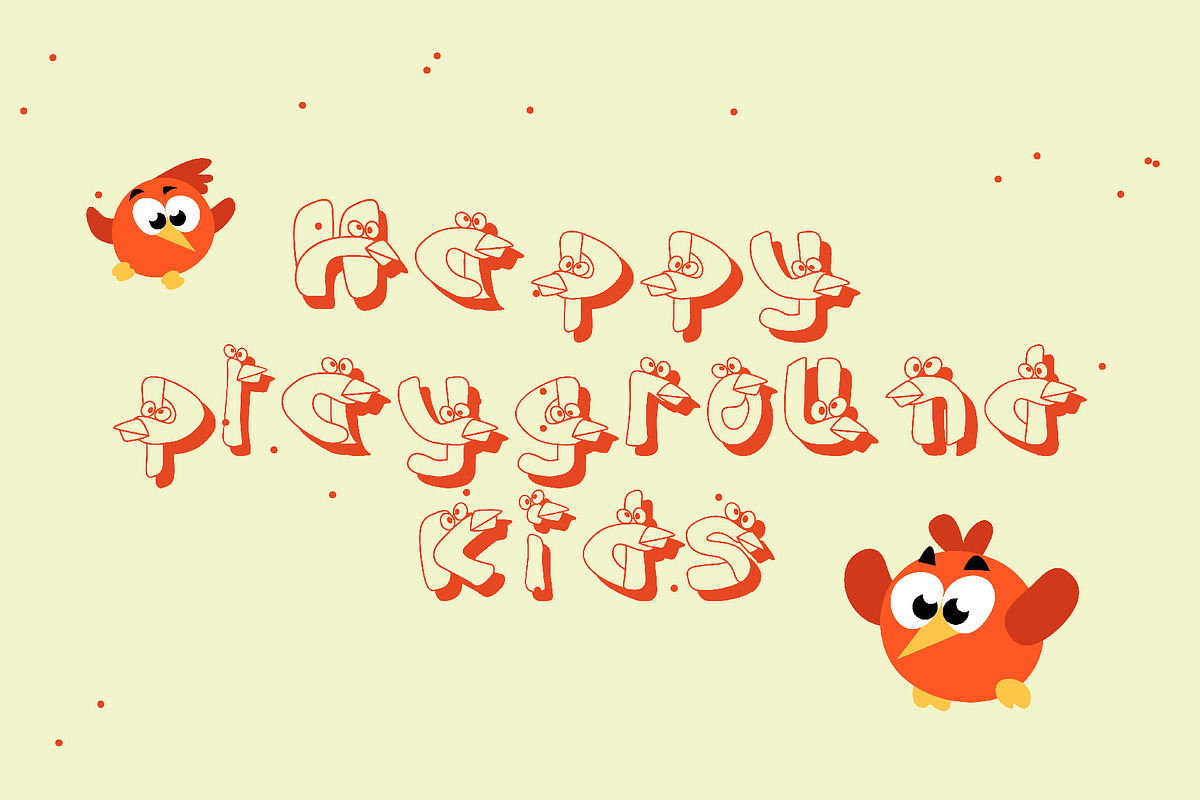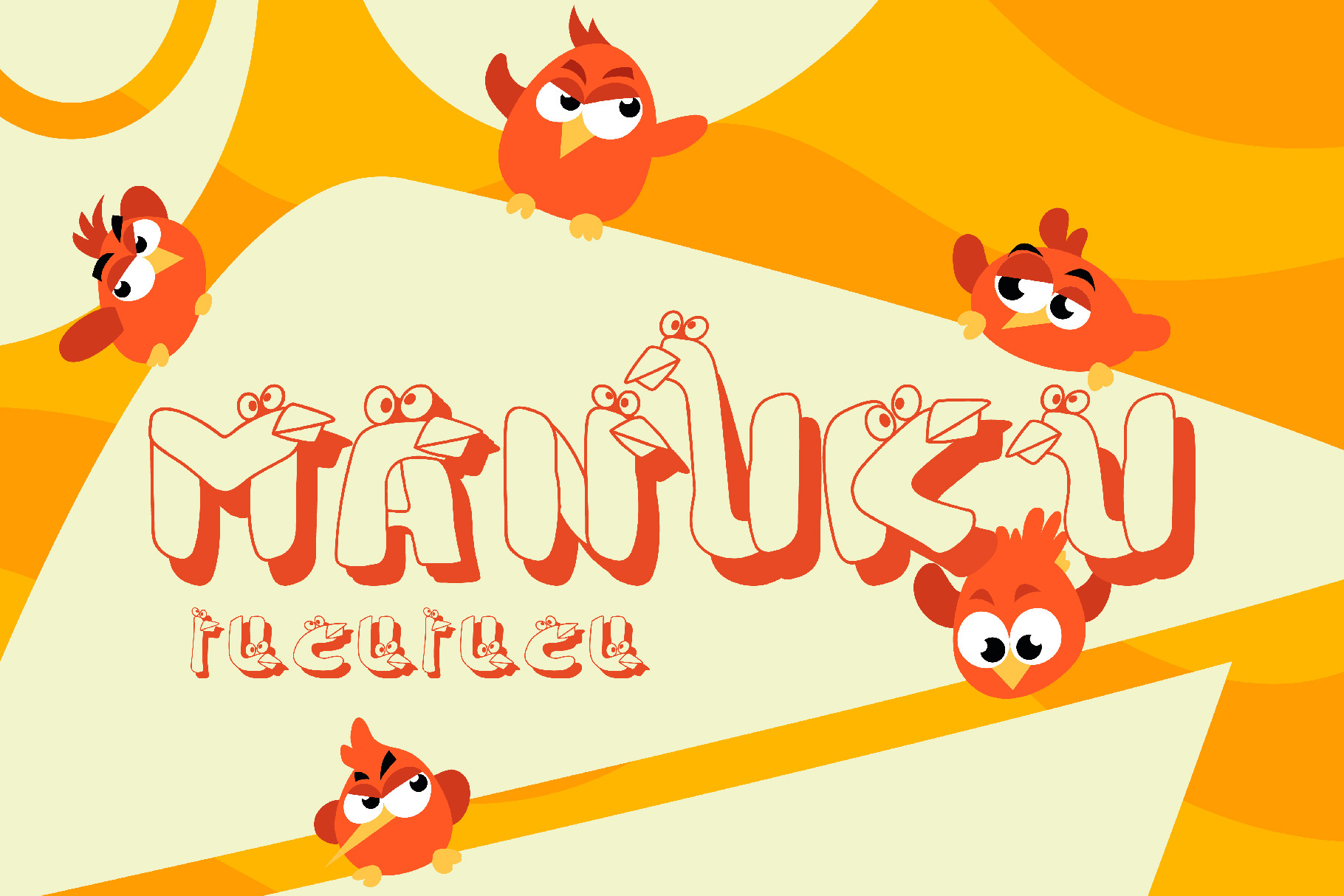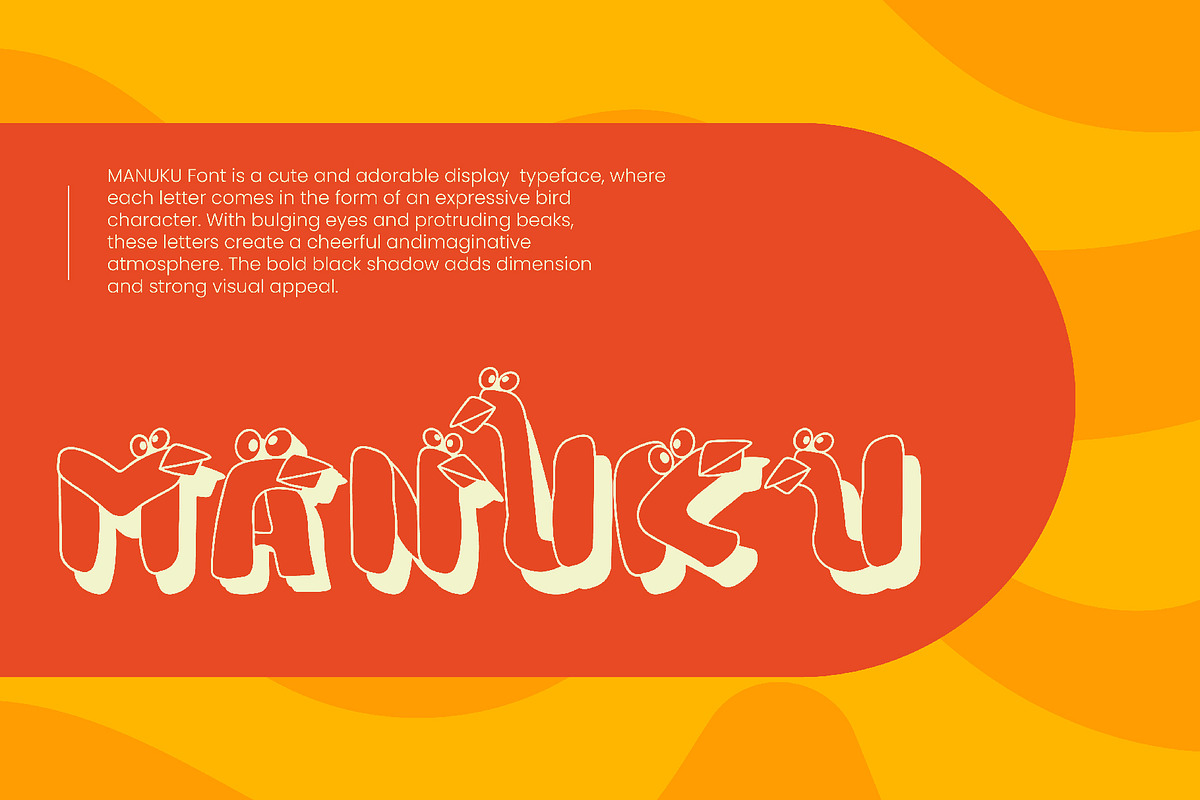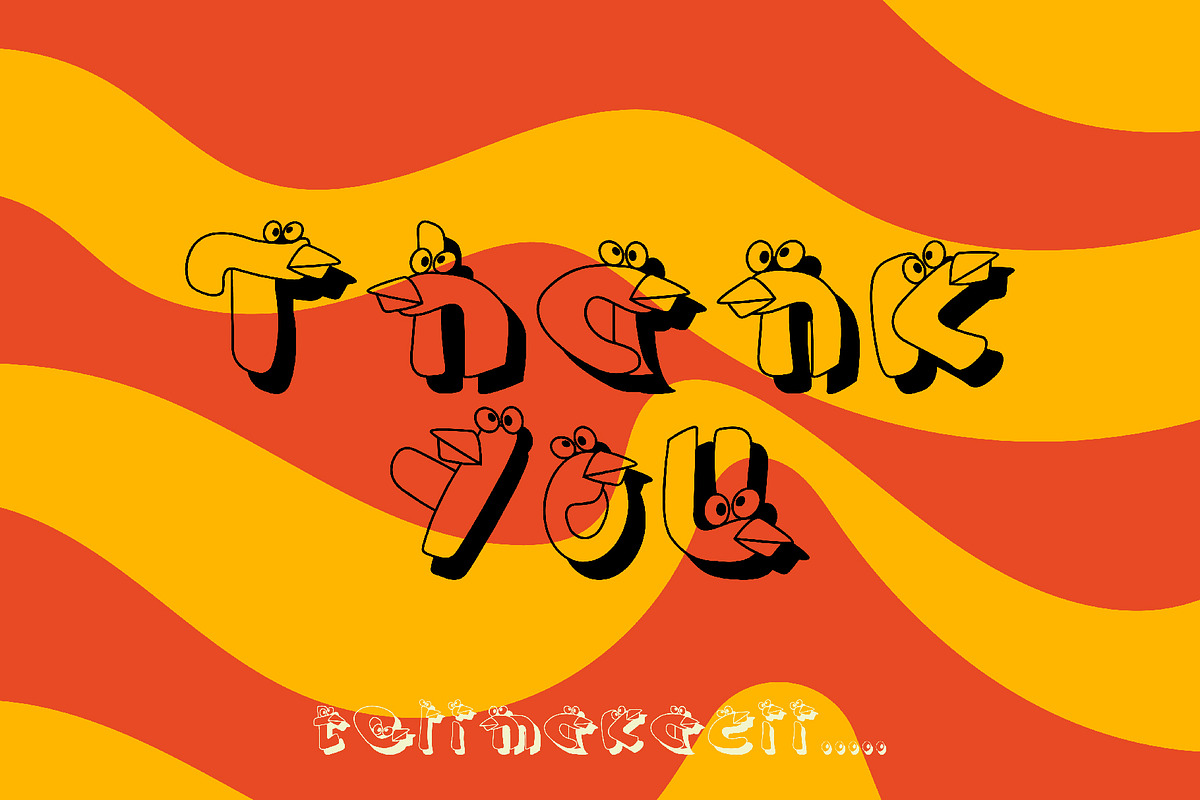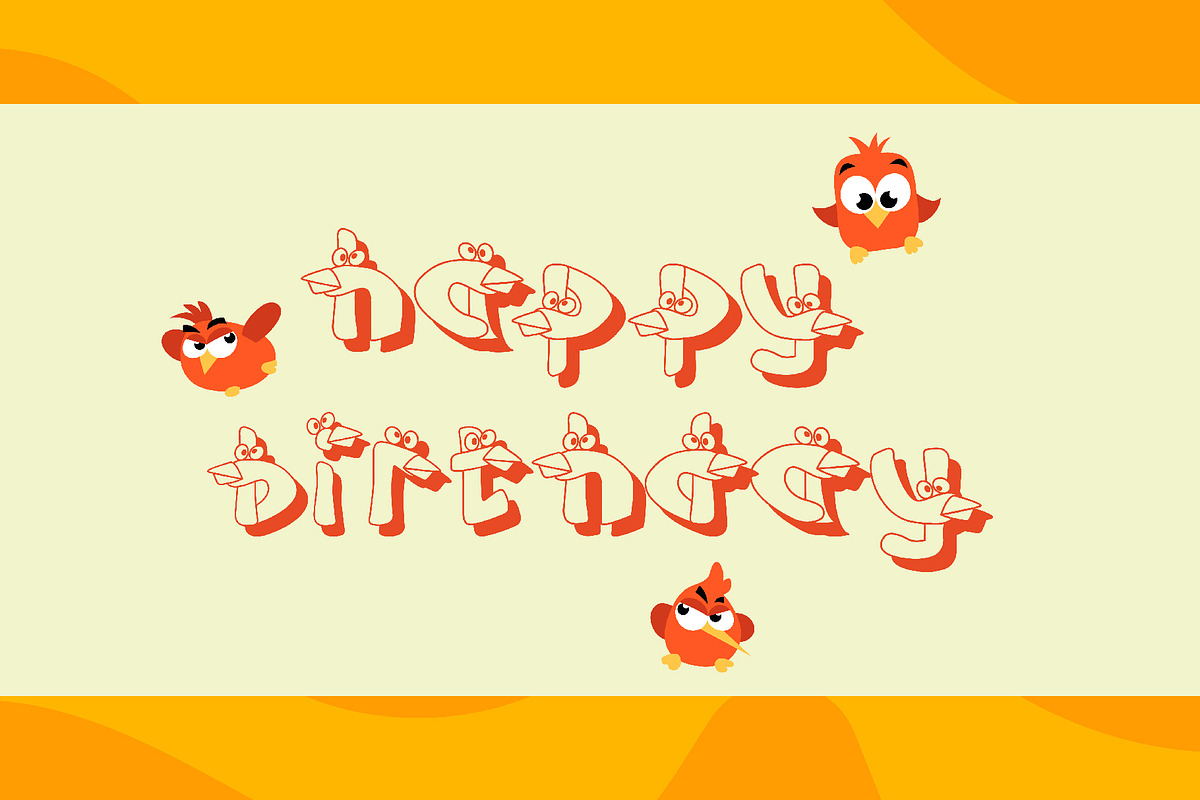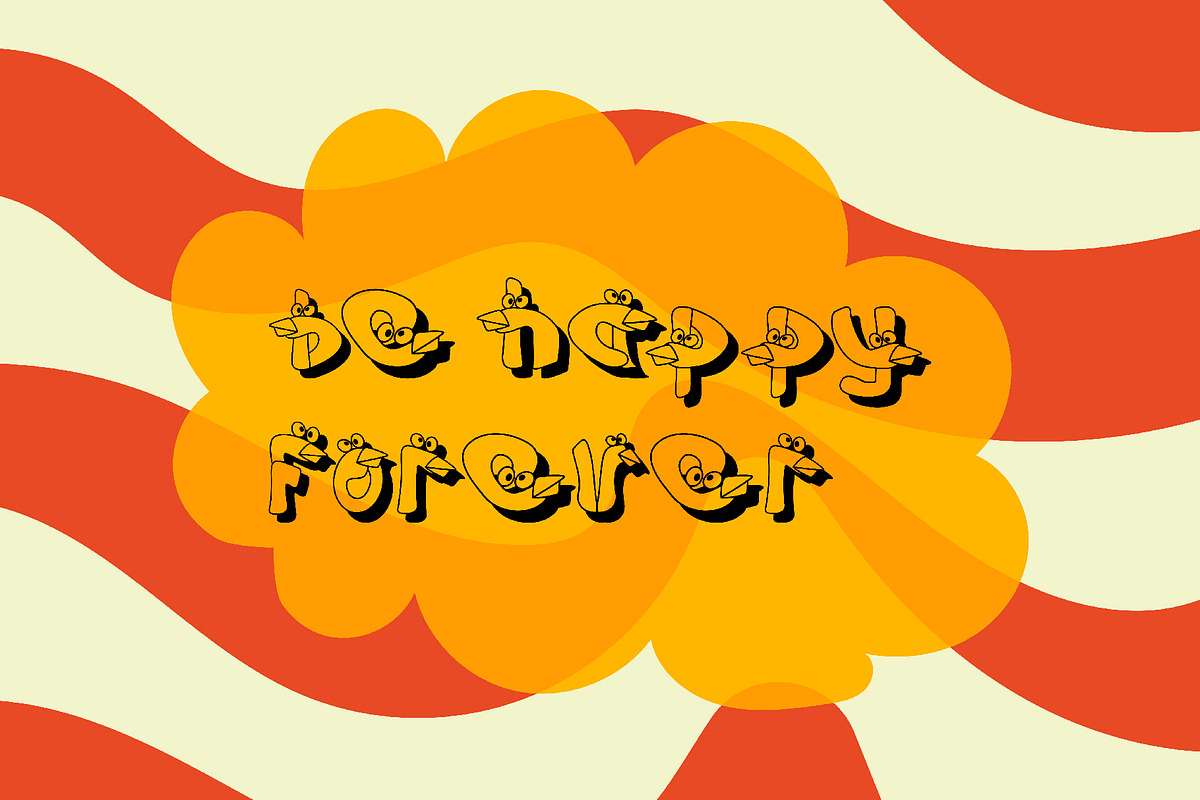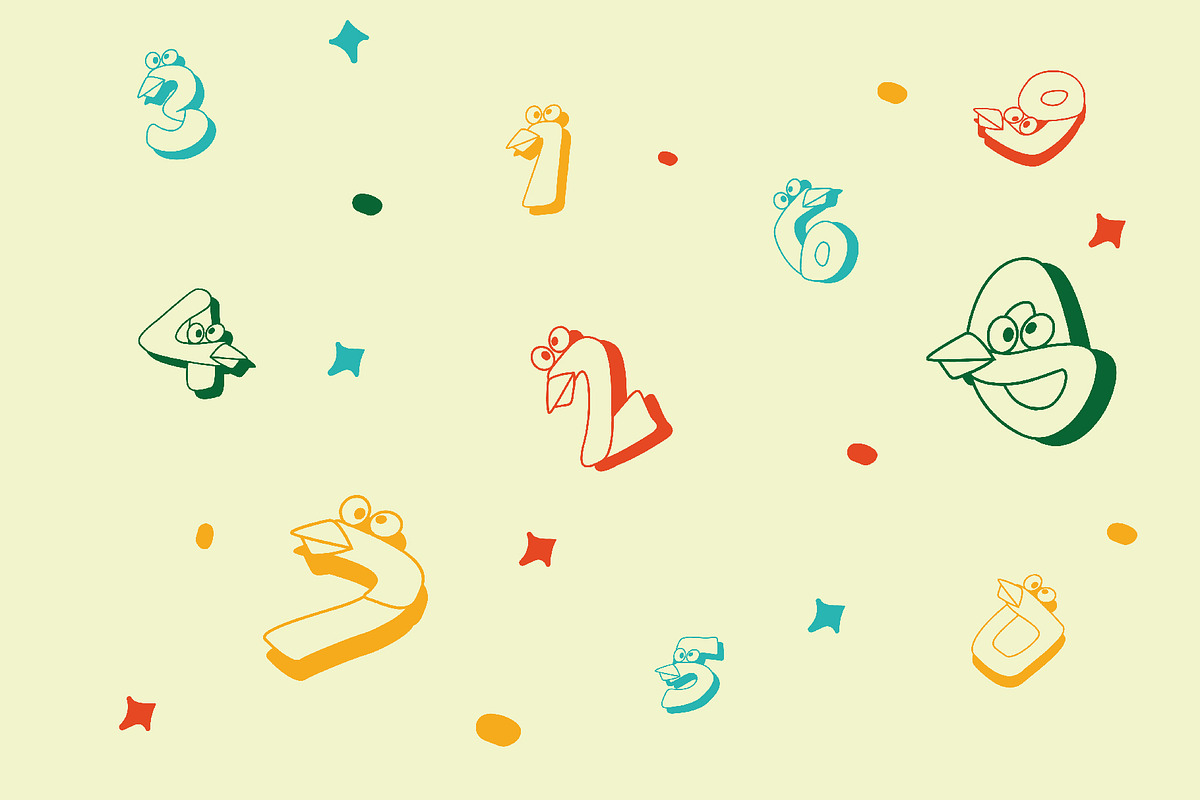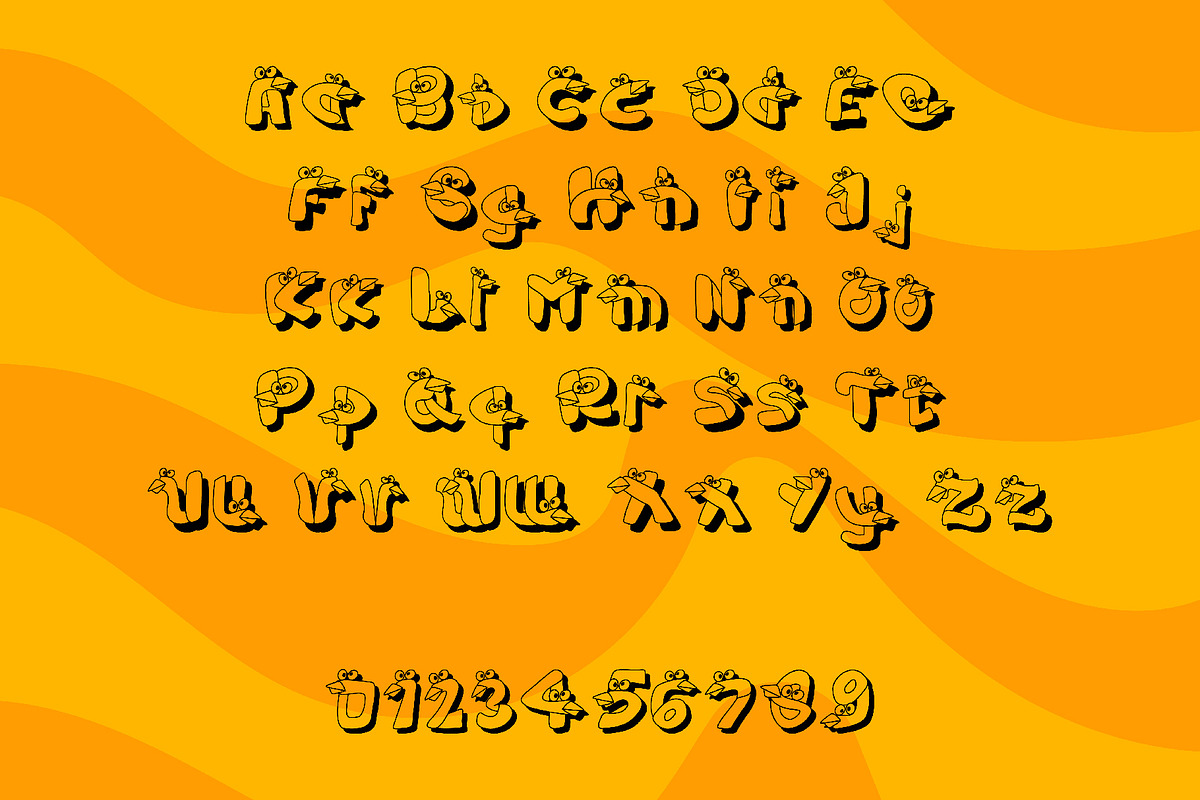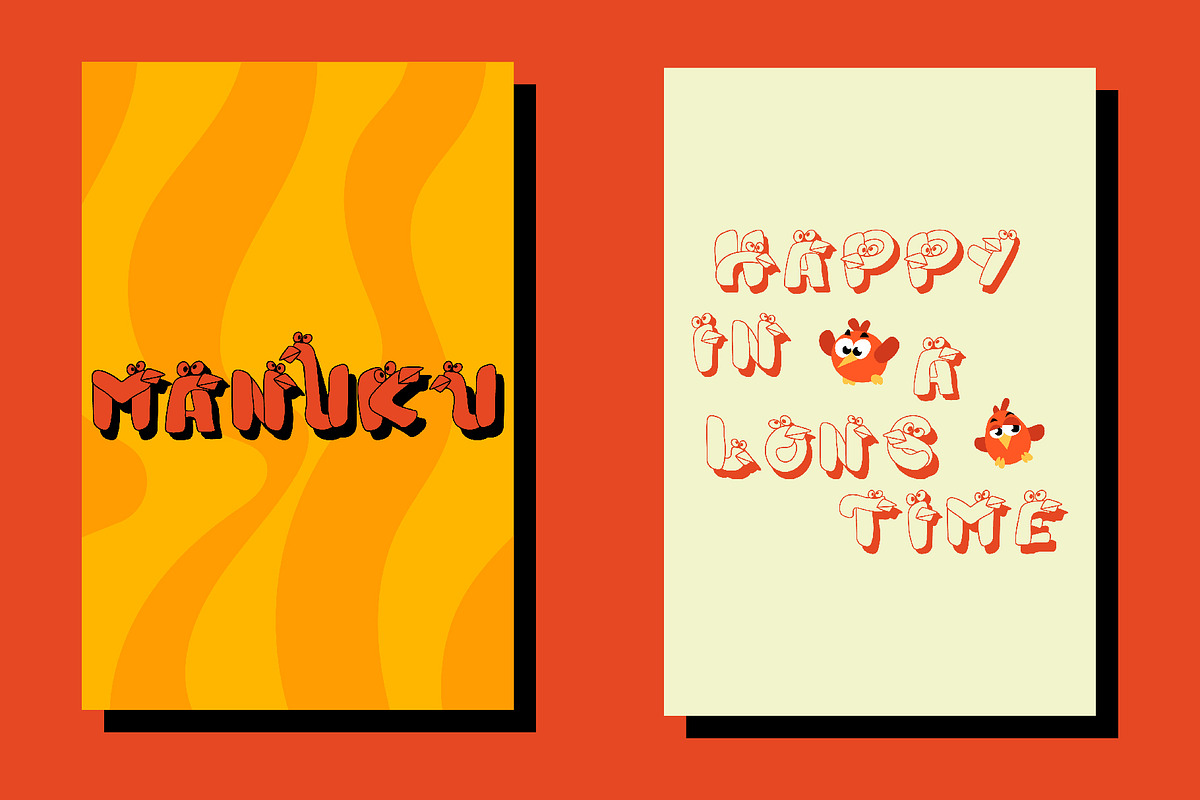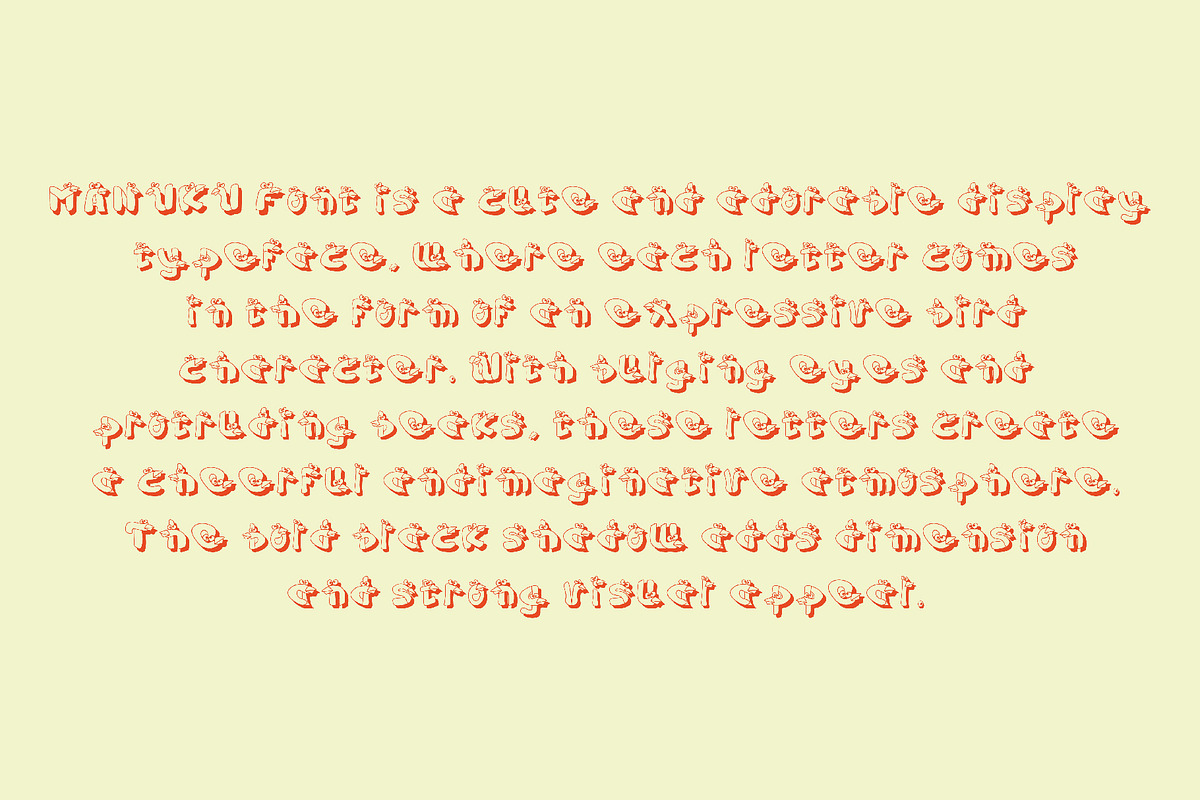
MANUKU - Handwritten Playful Font
MANUKU Font is a cute and adorable display typeface, where each letter comes in the form of an expressive bird character. With bulging eyes and protruding beaks, these letters create a cheerful andimaginative atmosphere. The bold black shadow adds dimension and strong visual appeal.